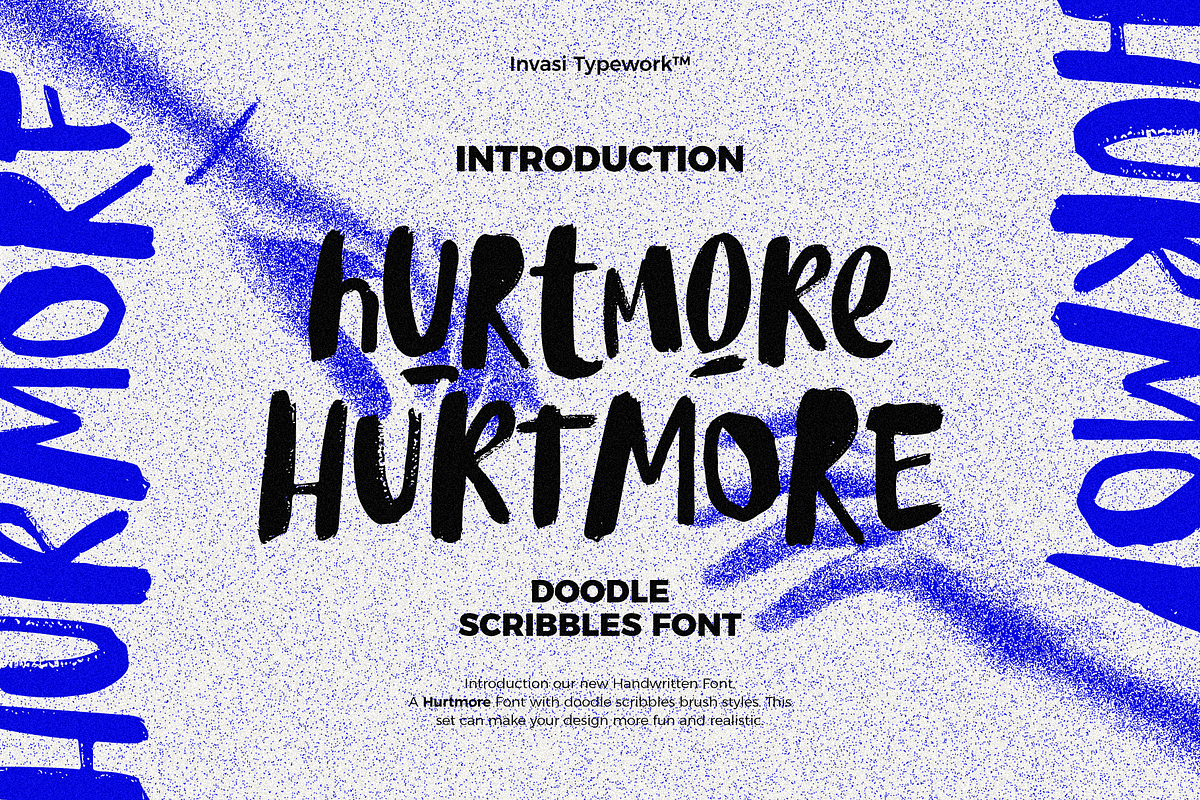
Hurtmore - Scribbles Font Free Download
Hurtmore – Scribbles Font Free Download
Hurtmore – Scribbles Font Free Download is a wild and expressive typeface that captures the raw energy of hand-drawn scribbles. With its chaotic strokes, sketchy texture, and rebellious personality, this font is perfect for edgy designs, music posters, streetwear branding, zines, grunge-style artwork, and anything that thrives on creative disorder.
Hurtmore – Scribbles Font Free Download stands out with its unpredictable rhythm and artistic messiness, making your designs feel loud, bold, and full of emotion. It’s a go-to for creatives who want to break the rules and push visual boundaries.